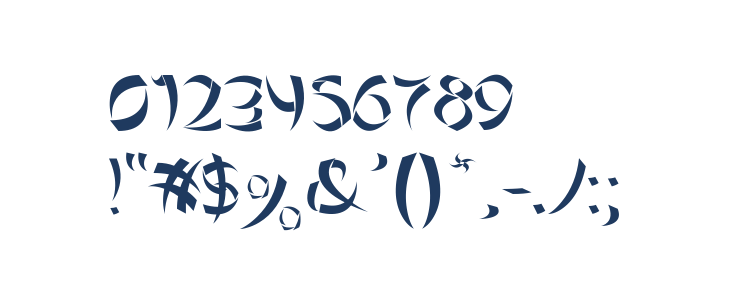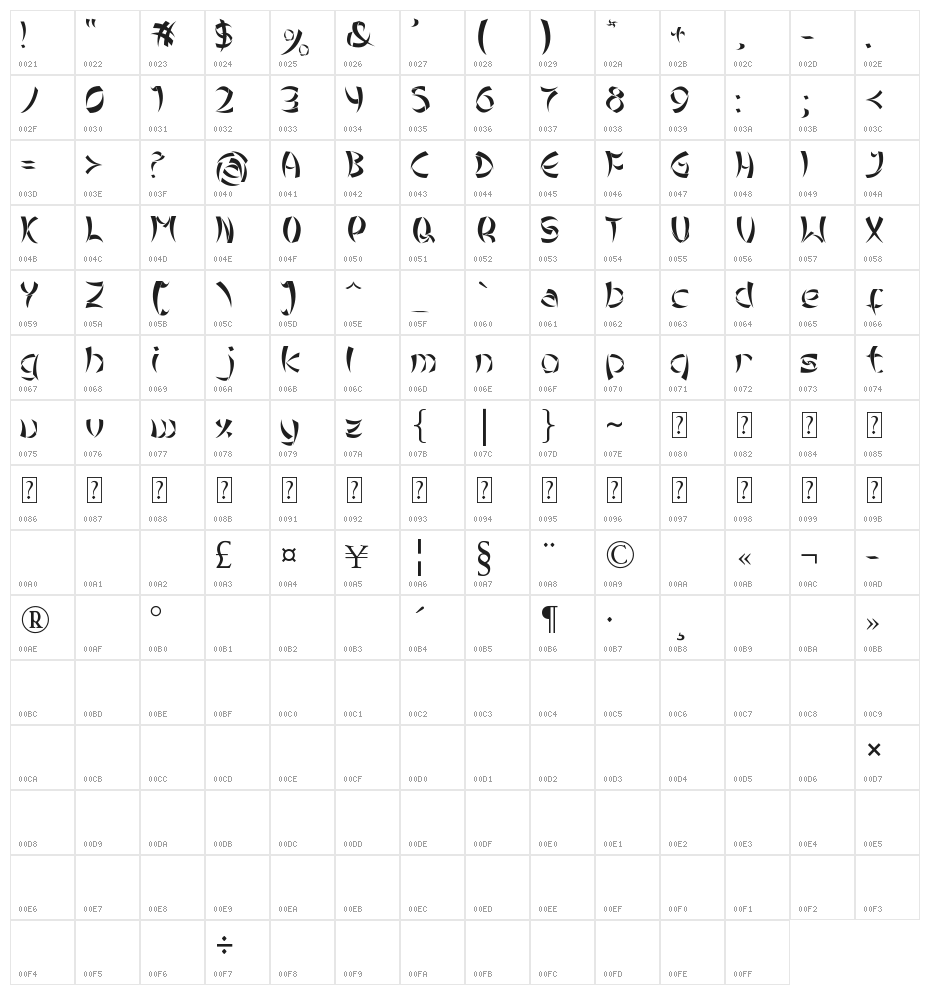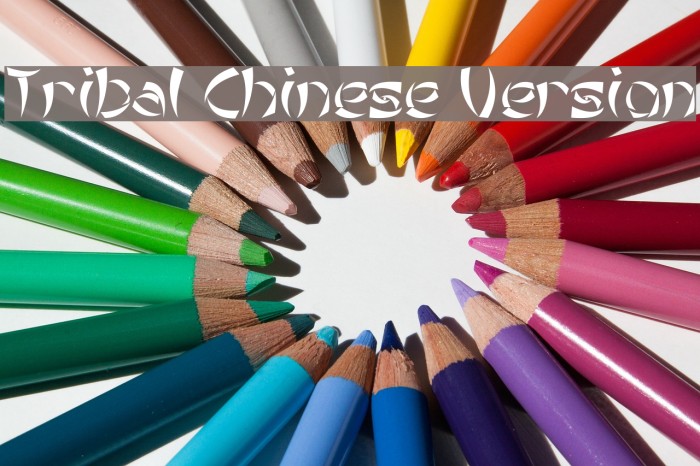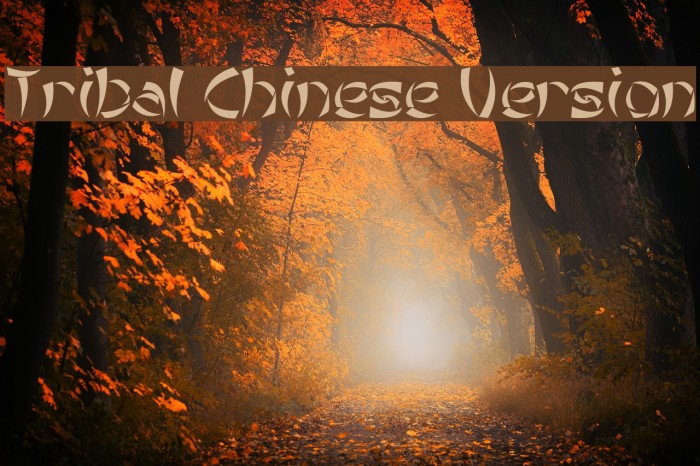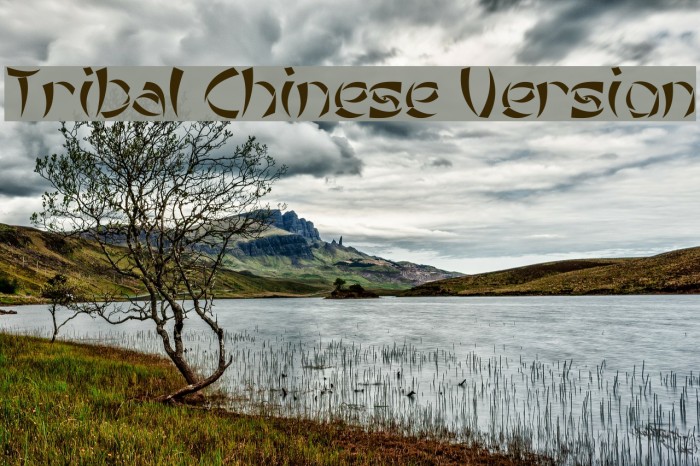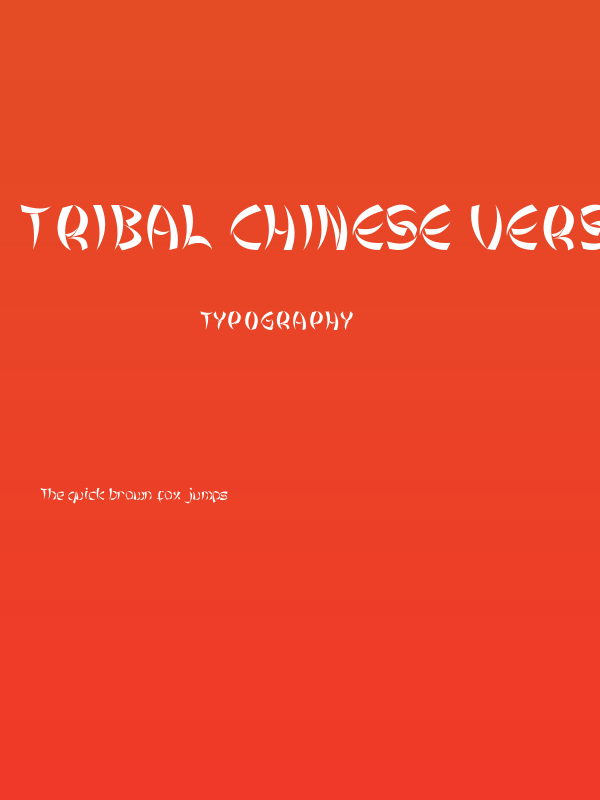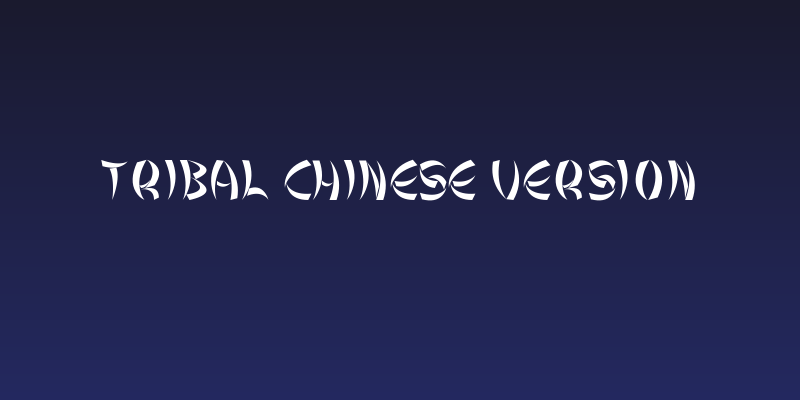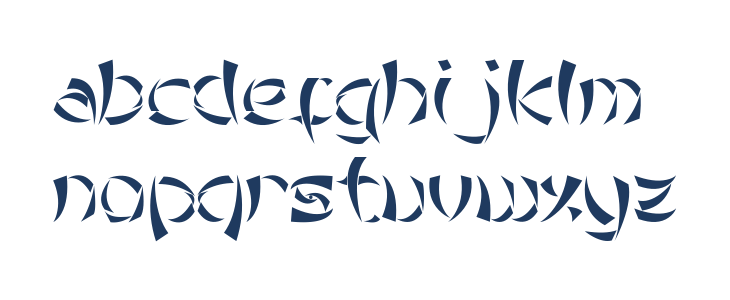
Tribal Chinese Version Font
Tribal Chinese Version Description
This font features a unique blend of tribal and Asian-inspired elements, creating a bold and artistic appearance. The characters are crafted with sharp, angular strokes that mimic traditional calligraphy while incorporating modern design aesthetics. The uppercase and lowercase letters maintain a consistent style, with each character exhibiting a distinct flair. The numbers and special characters follow the same design principles, ensuring a cohesive look across all elements. This font's intricate details and dynamic shapes make it stand out, offering a visually striking option for creative projects.
| Proposed Projects | Ideal for tattoo designs, cultural event posters, artistic branding, and creative digital artwork. |